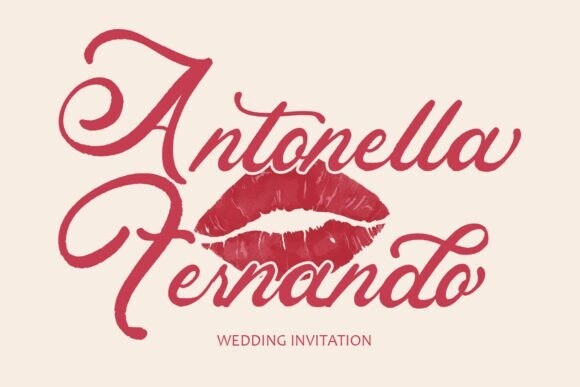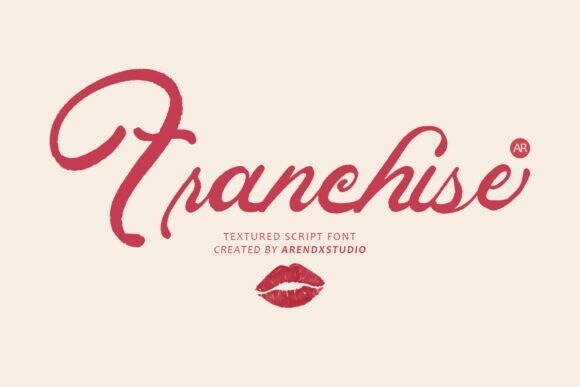
Franchise Font
Designer: Arendxstudio
Franchise Font is a bold and dynamic textured script typeface designed to add personality and character to any creative project. This font captures the essence of handcrafted lettering, offering a rough, organic texture that mimics the look and feel of hand-brushed or hand-drawn typography.